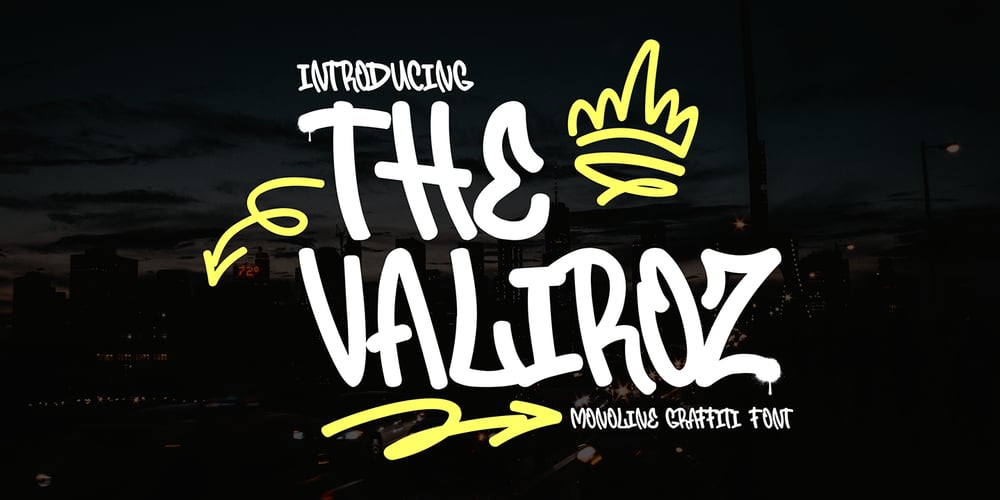
The Valiroz
The Valiroz font
The Valiroz Font Family was designed by Sipanji and published by Sipanji21. The Valiroz contains 2 styles and family package options. “The Valiroz” is described as a monoline graffiti font that incorporates swash characters. Fonts in the monoline style maintain consistent stroke widths throughout the letterforms, offering a sleek and uniform appearance. The addition of swash characters introduces decorative elements or flourishes that embellish the font, enhancing its stylistic versatility.This font, “The Valiroz,” combines the clean and modern look of monoline typography with the artistic flair of swash characters. It’s suitable for various design projects where a graffiti-inspired typographic style with a touch of decorative elegance is desired.